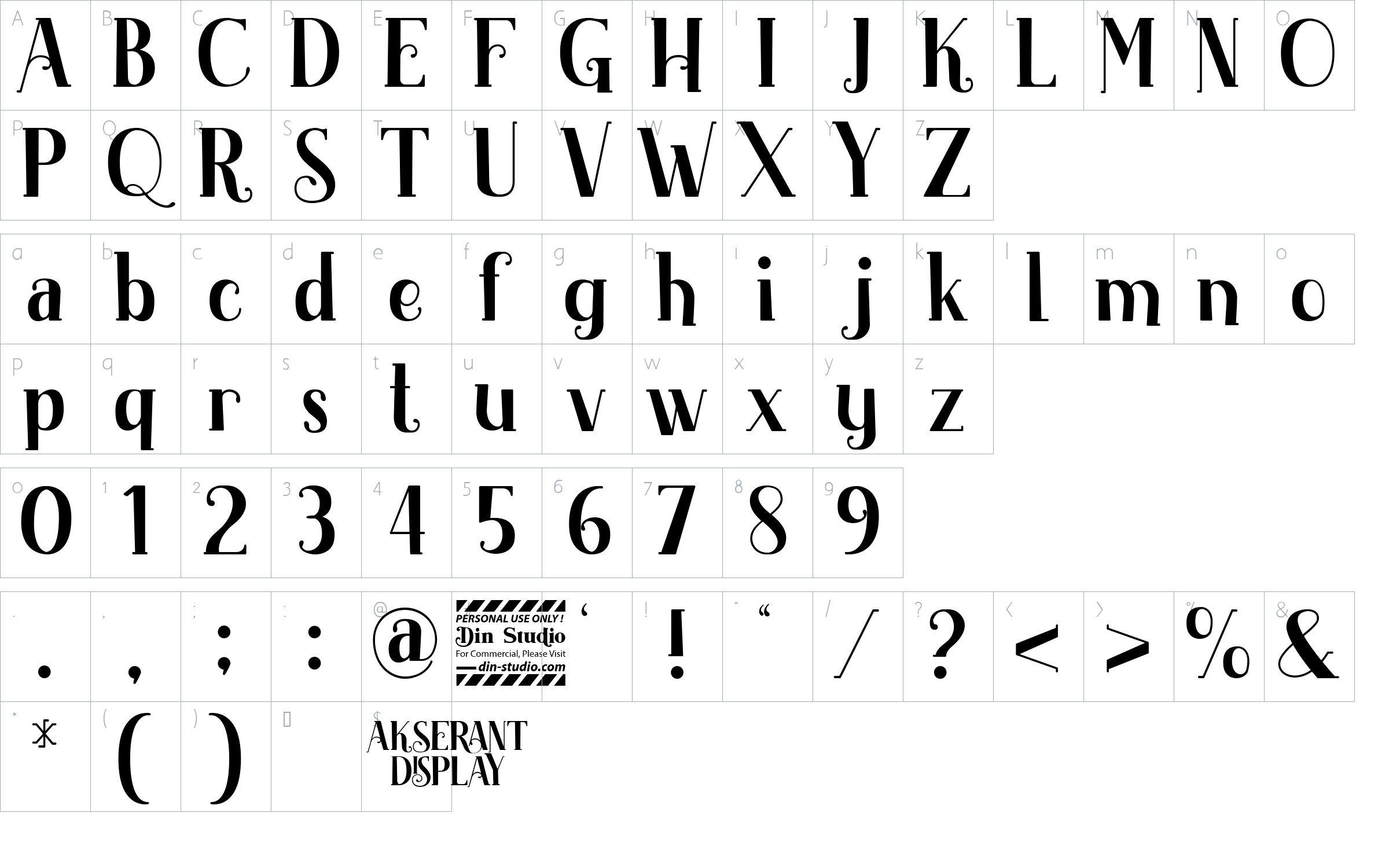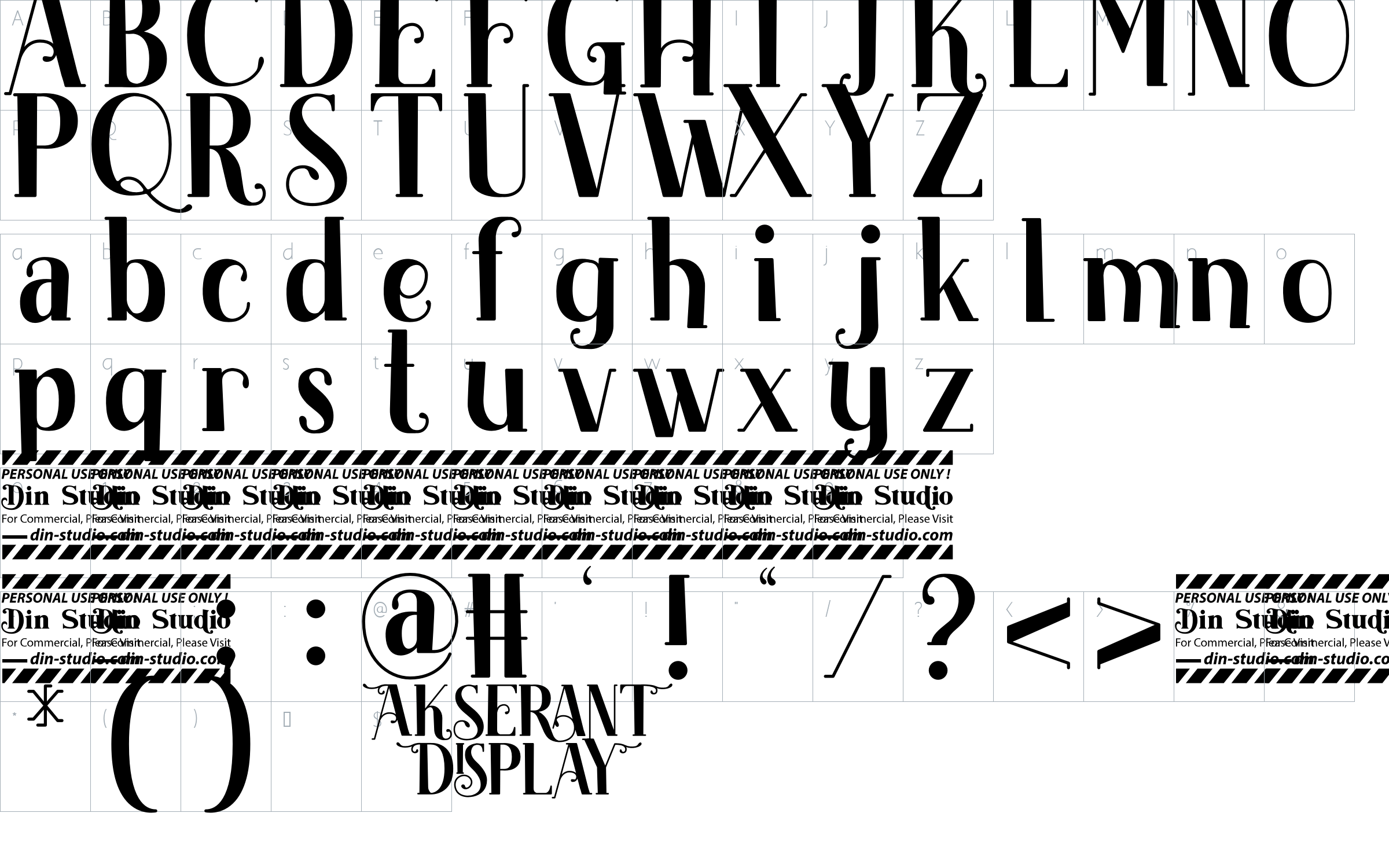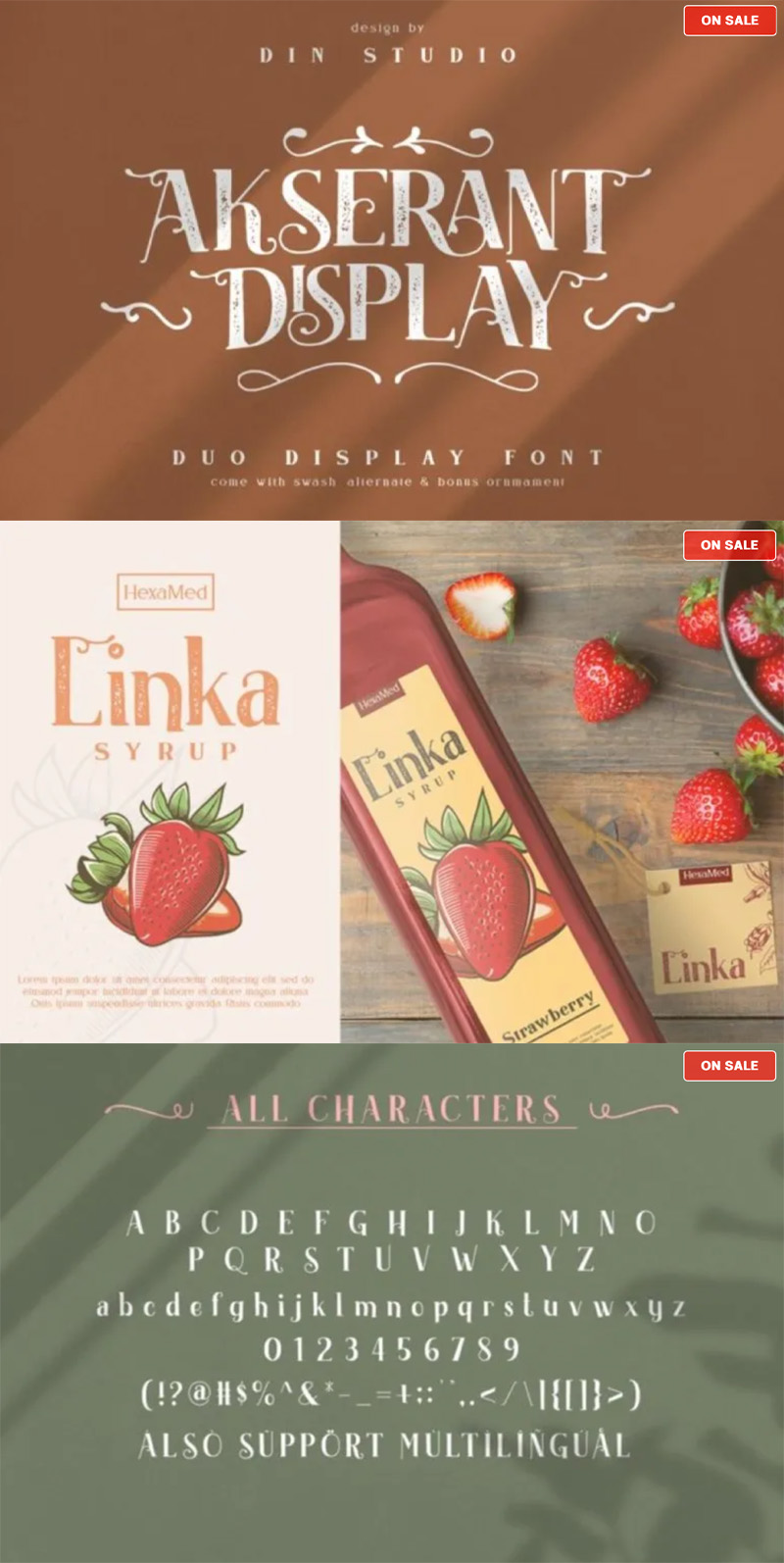
Akserant Display Font
About Akserant Display
Akserant Display Font is an amazing display font. The font is suitable for any project like branding, advertising, bbok cover, lettering, t-shirt print and so much more. See the previews above to get some inspiration on how you can use them. Enjoy the font!
-10 Ligatures
-113 Alternates and swashes
-Numerals and Punctuation (OpenType Standard)
-Features with Clean and Rough Version.
-Bonus ornament